✨ 1. Magic Alphabet
One of the top-selling script fonts: a stylish handwritten typeface, perfect for titles and logo design.
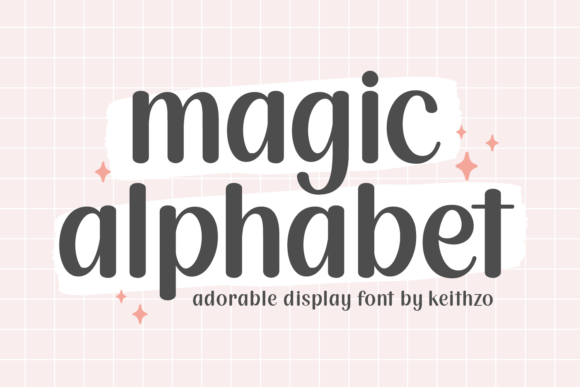
2. Ashley Southine
A feminine and elegant font with delicate swashes. Frequently used in wedding and romantic design projects.
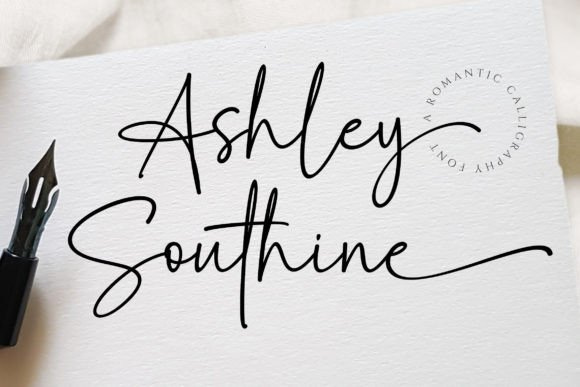
3. Hello
A simple and friendly handwritten font — a versatile choice for Instagram content, blogs, and e-commerce branding.
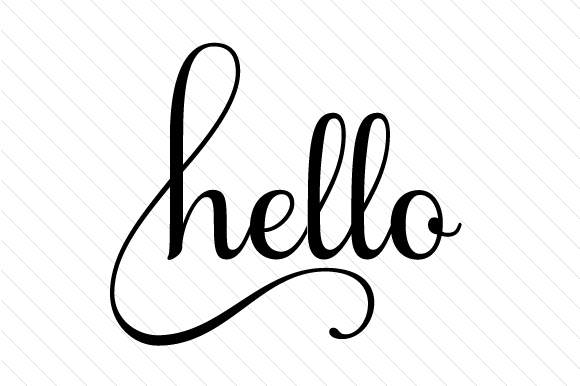
4. Farmhouse
A rustic, farmhouse-style script font ideal for product packaging, signage, and DIY crafts. Its rough charm gives a warm, handmade feel.
5. California
A relaxed and breezy script inspired by the California vibe — perfect for summer posters, travel branding, and beach-style visuals.
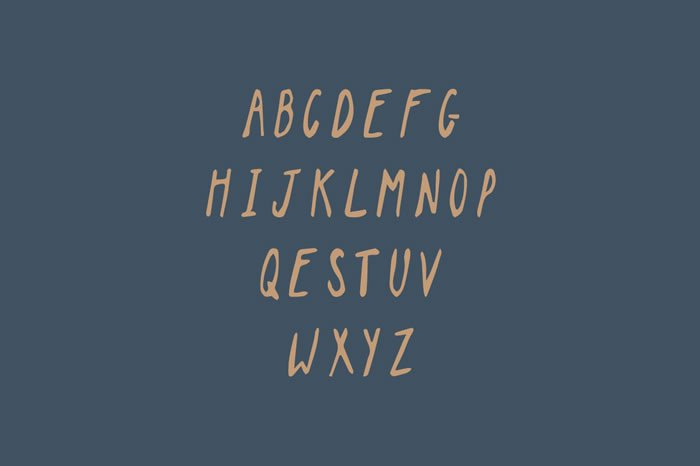
6. Monday
A modern brush script with a natural, flowing texture. Great for logos, ads, cover art, and bold headlines.
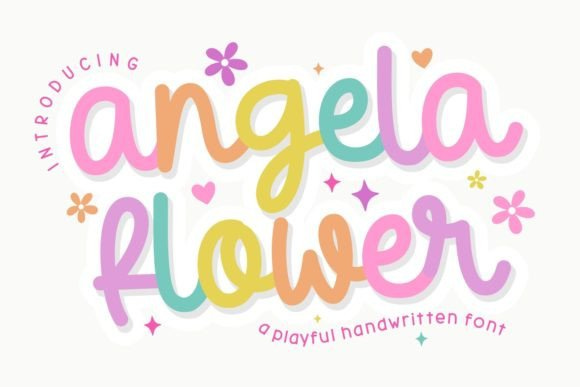
7. Panda
A playful handwritten brush font with smooth curves. Ideal for packaging, children’s products, and creative posters.
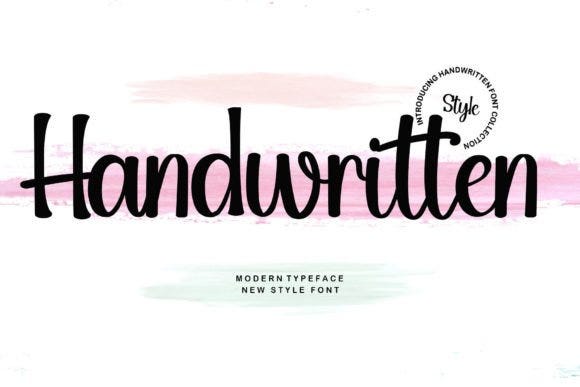
8. Benefit
A graceful calligraphy-style font with elegant ligatures. Perfect for upscale branding, invitations, and certificates.
9. Starford Handwriting Brush
A brush script with a painterly, textured effect. Excellent for greeting cards, hand-lettered designs, and aesthetic packaging.
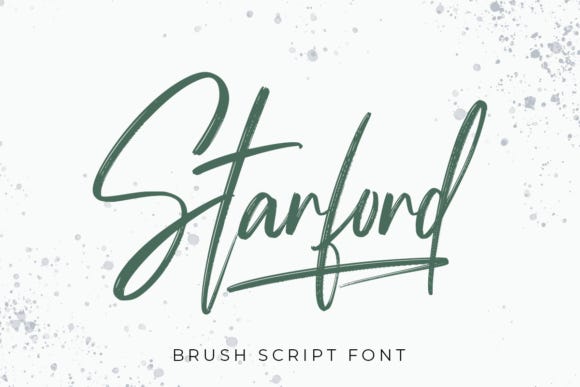
10. Sparkle Bright
A soft and slightly glittery script font with a brush look. Great for festive graphics, kids’ designs, and feminine branding.